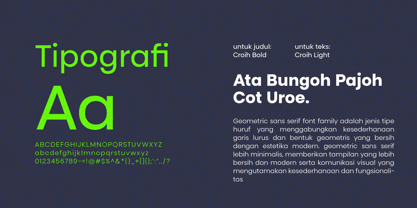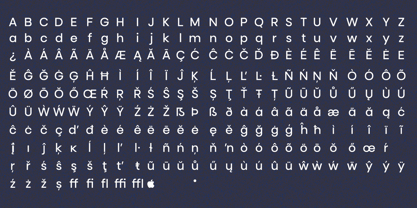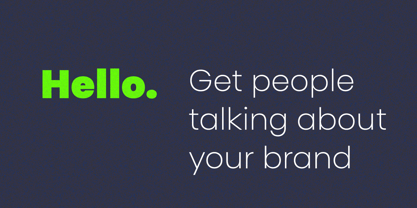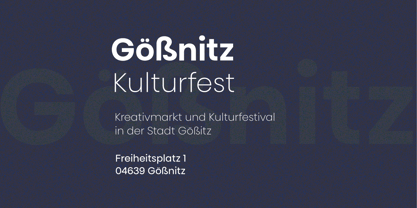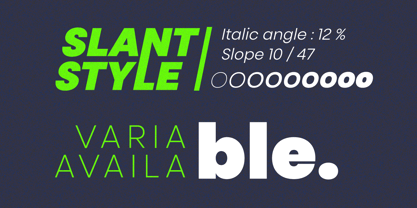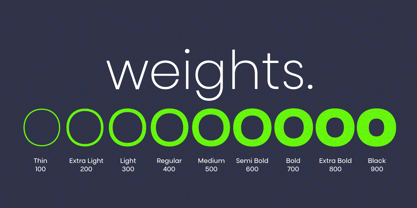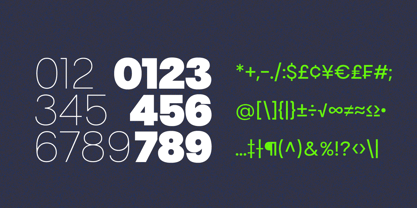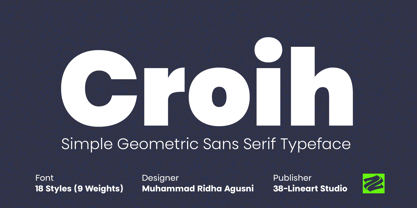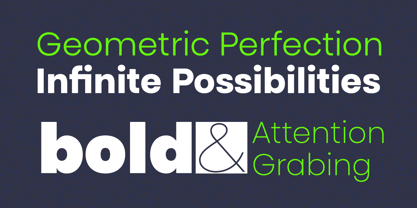
Croih
The Croih Font Family was designed by Muhammad Ridha Agusni and published by 38-lineart. Croih contains 19 styles and family package options. More about this family
Croih is a refined geometric sans-serif typeface that combines simplicity with modern elegance. Its clean lines and balanced shapes make it a versatile choice for a variety of design projects. Offering 18 styles across 9 weights, from Thin to Black, Croih ensures flexibility for both bold, impactful headlines and smooth, highly readable body text. The typeface features a full character set, including uppercase, lowercase, numerals, symbols, accents, and ligatures, making it ideal for multilingual projects and adaptable to various branding and communication needs. Perfect for both print and digital media, Croih’s contemporary design is well-suited for creating striking visuals
38-Lineart Studios is an Indonesian-based type foundry owned and managed by Muhammad Ridha Agusni. What began in 2018 as a hobby, inspired by his background in architecture, has grown into a dedicated pursuit of font creation. Muhammad brings his architectural precision to type design, shaping each letter with care and purpose.Working from his home, Muhammad's design process is grounded in simplicity and focus. In the comfort of his familiar surroundings, he applies his skills to create fonts, appreciating the straightforward pleasures that come with his work.